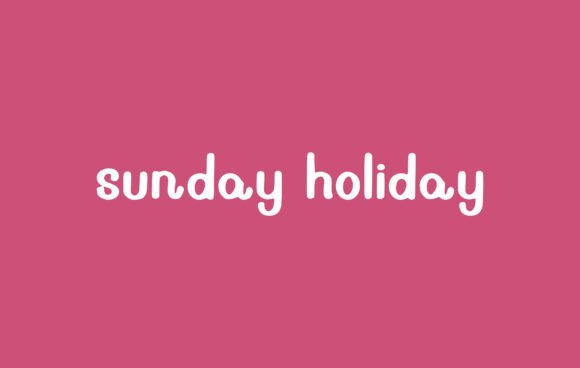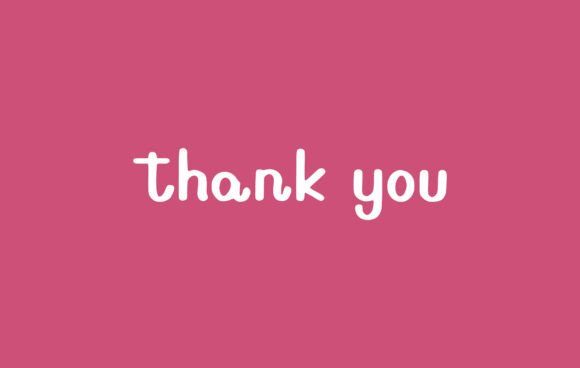
Introduction to Loyaltos Font
There’s nothing quite like the thrill of creating something from scratch, watching your ideas come to life on the page. As designers, we’ve all been there – staring at a blank canvas, waiting for the perfect spark to ignite our creativity. For many of us, the right font can be that spark, elevating our work from good to great. Enter the Loyaltos Font, a stunning handwritten font that’s about to become your new favorite design resource.
With its authentic, romantic touch, the Loyaltos Font is the perfect addition to any high-quality design project. Whether you’re working on a magazine headline, social media campaign, or wedding invitation, this versatile font is sure to impress. And the best part? It’s available for a free download, complete with a transparent background that makes it easy to integrate into any design.
- Unique and stylish design, perfect for making a statement in creative projects.
Honest Review: Loyaltos Font
I recently stumbled upon the Loyaltos Font, and I must say it’s a fantastic addition to any design resource collection. The font’s clean design makes it perfect for creating a professional and modern look in any creative project.
However, there are some limitations: ⚠️ Limited font weight options, which might not be suitable for all design projects. ⚠️ No extended font family, which can make it harder to maintain consistency in larger designs.
Overall, I’m impressed with the Loyaltos Font. Its clean design and high-quality graphics make it a great choice for any creative project. While it has some limitations, I believe it’s still a valuable addition to any design resource collection.
Loyaltos Font
The Loyaltos Font is a high-quality design resource perfect for creative projects. It features a transparent background and is available for free download.
Tips for Getting the Most Out of Loyaltos Font
To get the most out of the Loyaltos Font, try using it in combination with other design elements to create a unique and eye-catching design.
Also, experiment with different font sizes and styles to add depth and visual interest to your design.
The Loyaltos Font is perfect for a variety of creative projects, including:
1. Graphic design
2. Digital marketing
3. Branding
4. Web design